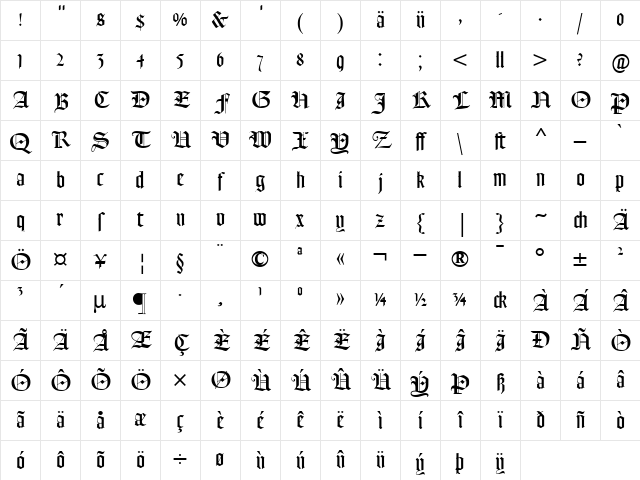
GoudyTextMTDfr Roman
Complete GoudyTextMTDfr Roman glyph index. Displaying only characters natively supported by GoudyTextMTDfr Roman font.
Design Context for GoudyTextMTDfr
GoudyTextMTDfr is a composed and adaptable typeface that performs quietly and consistently across a wide range of design contexts.